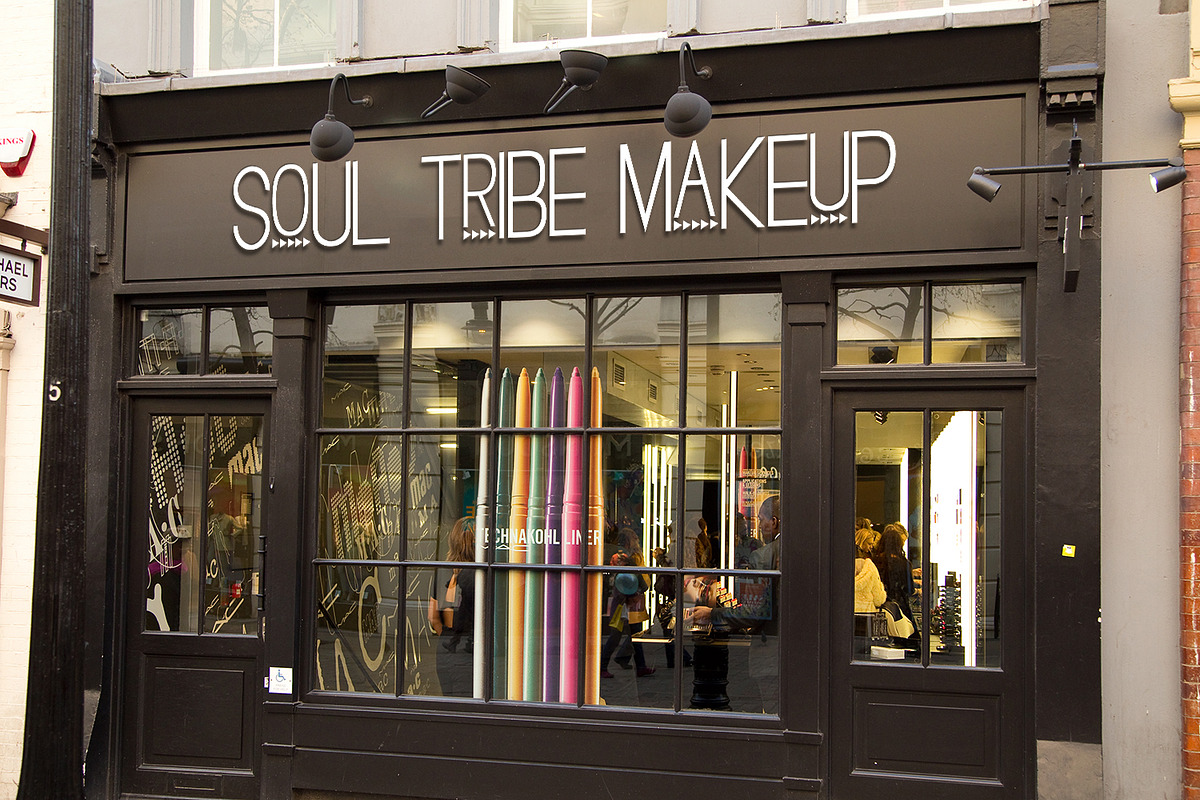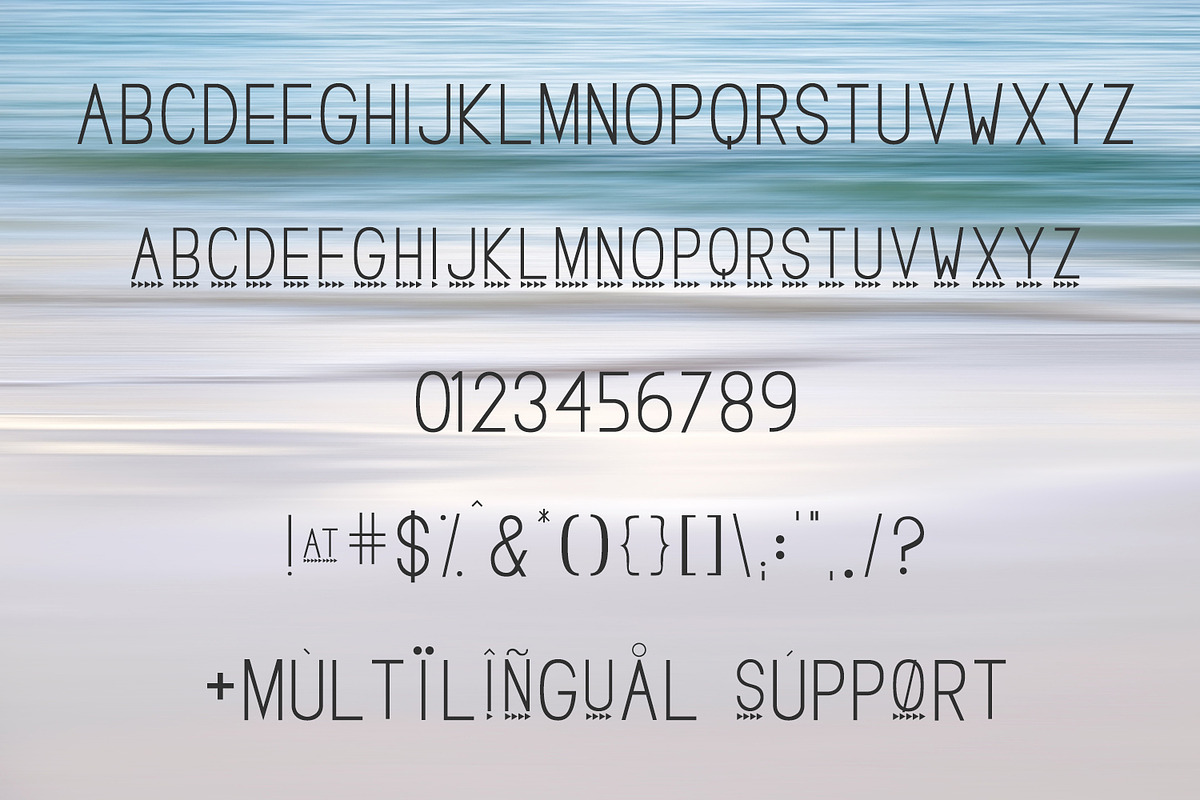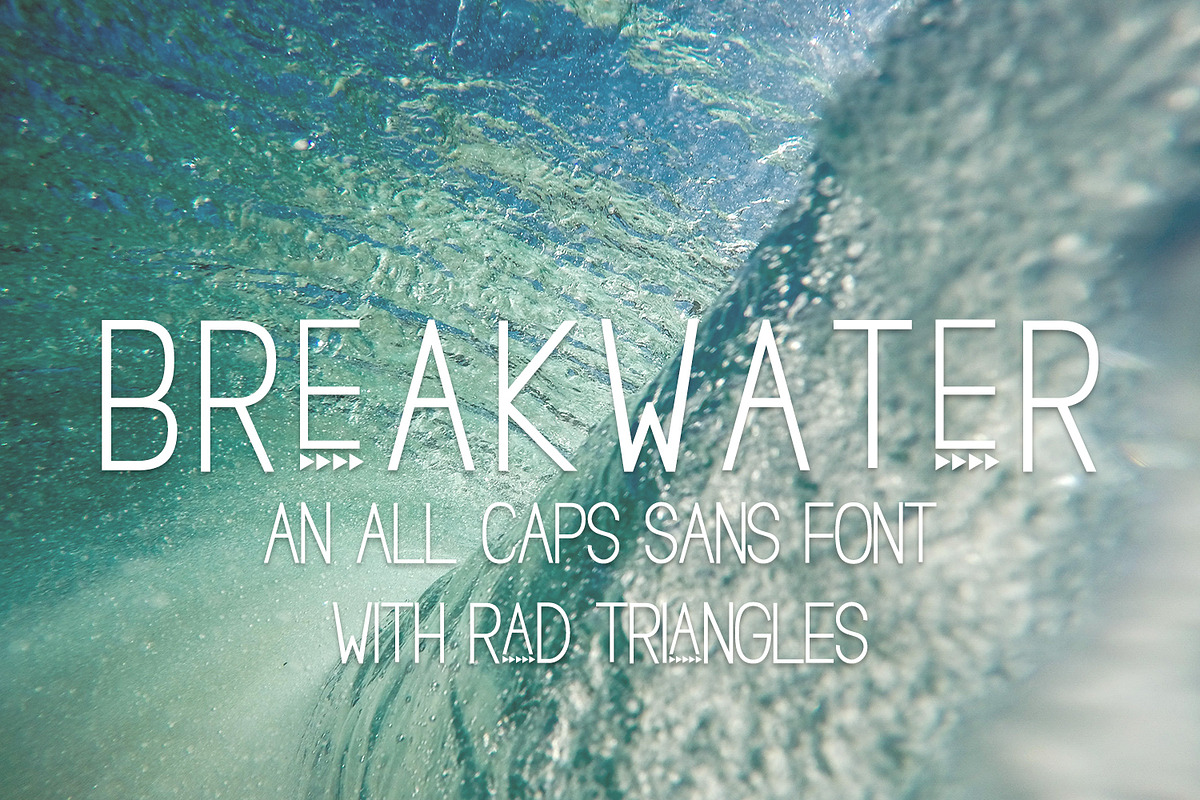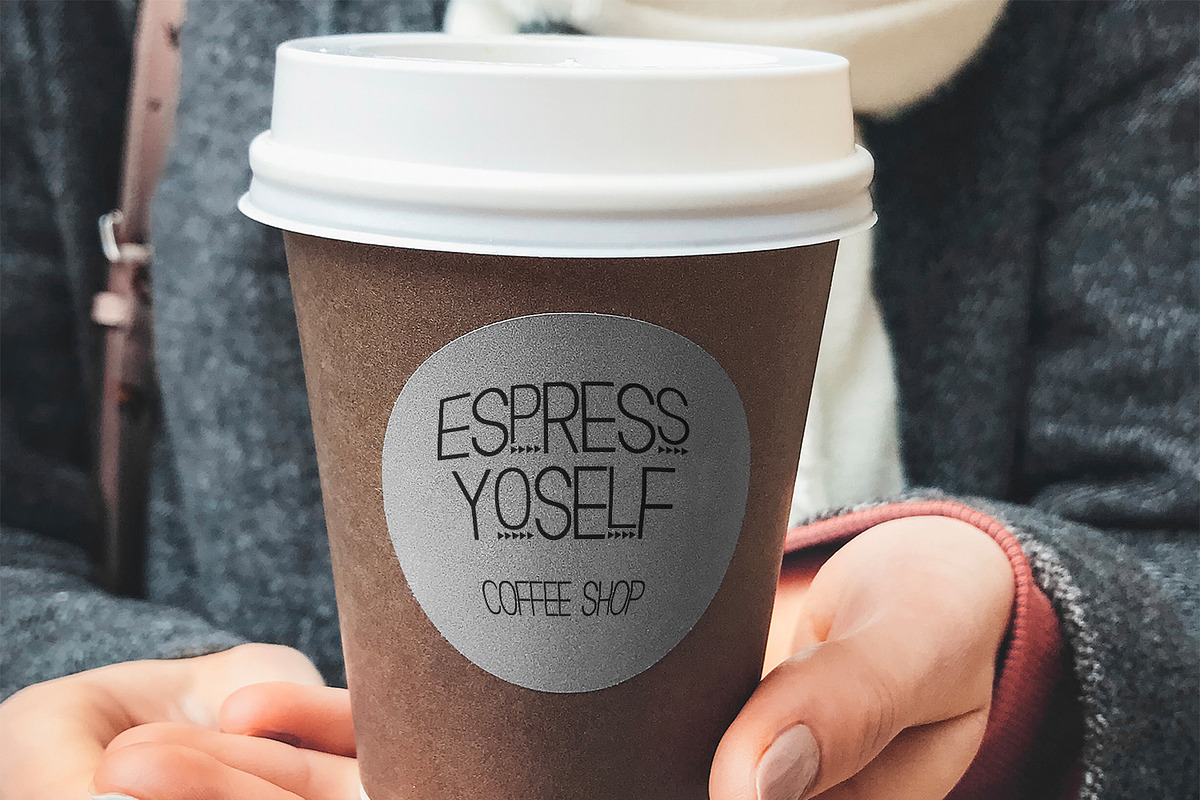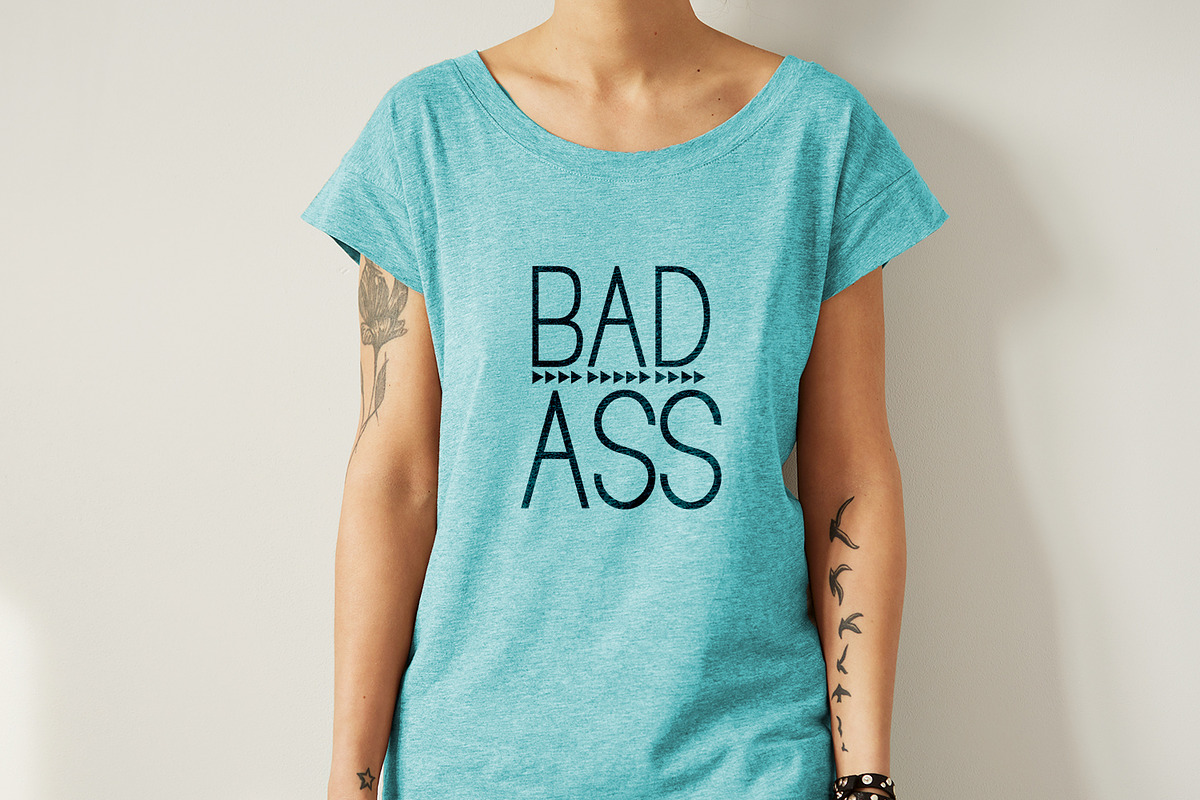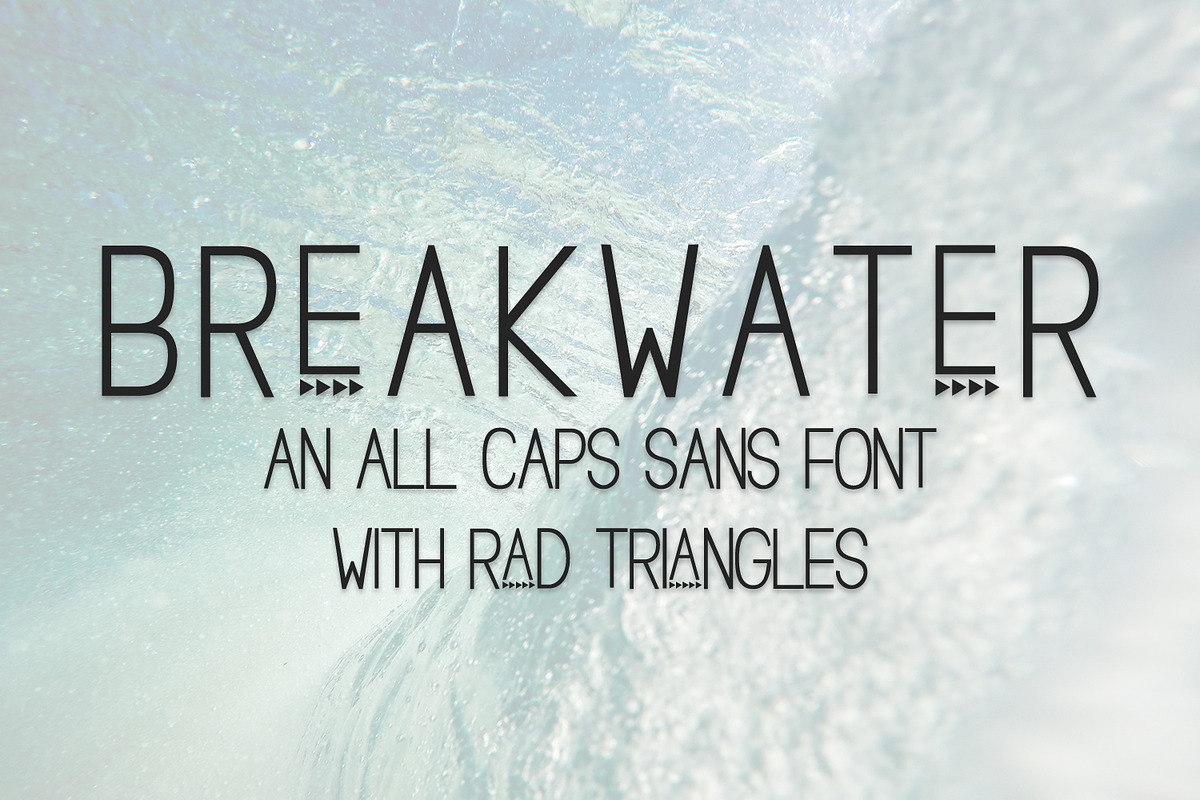
Breakwater Sans
Introducing Breakwater, an all caps sans font with rad triangle details. Type in a combo of capital & lowercase to add a little extra flair to your next project — perfect for branding, posters + ads, menus, & more.
Breakwater includes Western European language support.